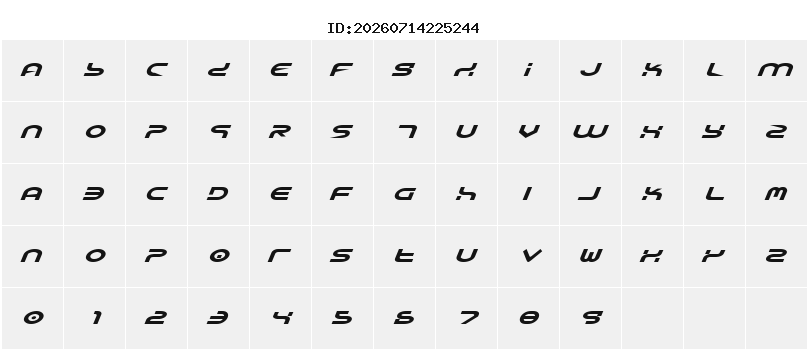
Yukon Tech Expanded Italic Preview
• Font Name: Yukon Tech Expanded Italic
• Font Style: Expanded Italic
• Font ID: Yukon Tech
• Full Font Name: Yukon Tech Expanded Italic
About Yukon Tech Expanded Italic.ttf
Yukon Tech Expanded Italic.ttf is a modern, elegant sans-serif font designed for ultimate readability and visual harmony. Perfect for branding, headlines, web design, and print materials.